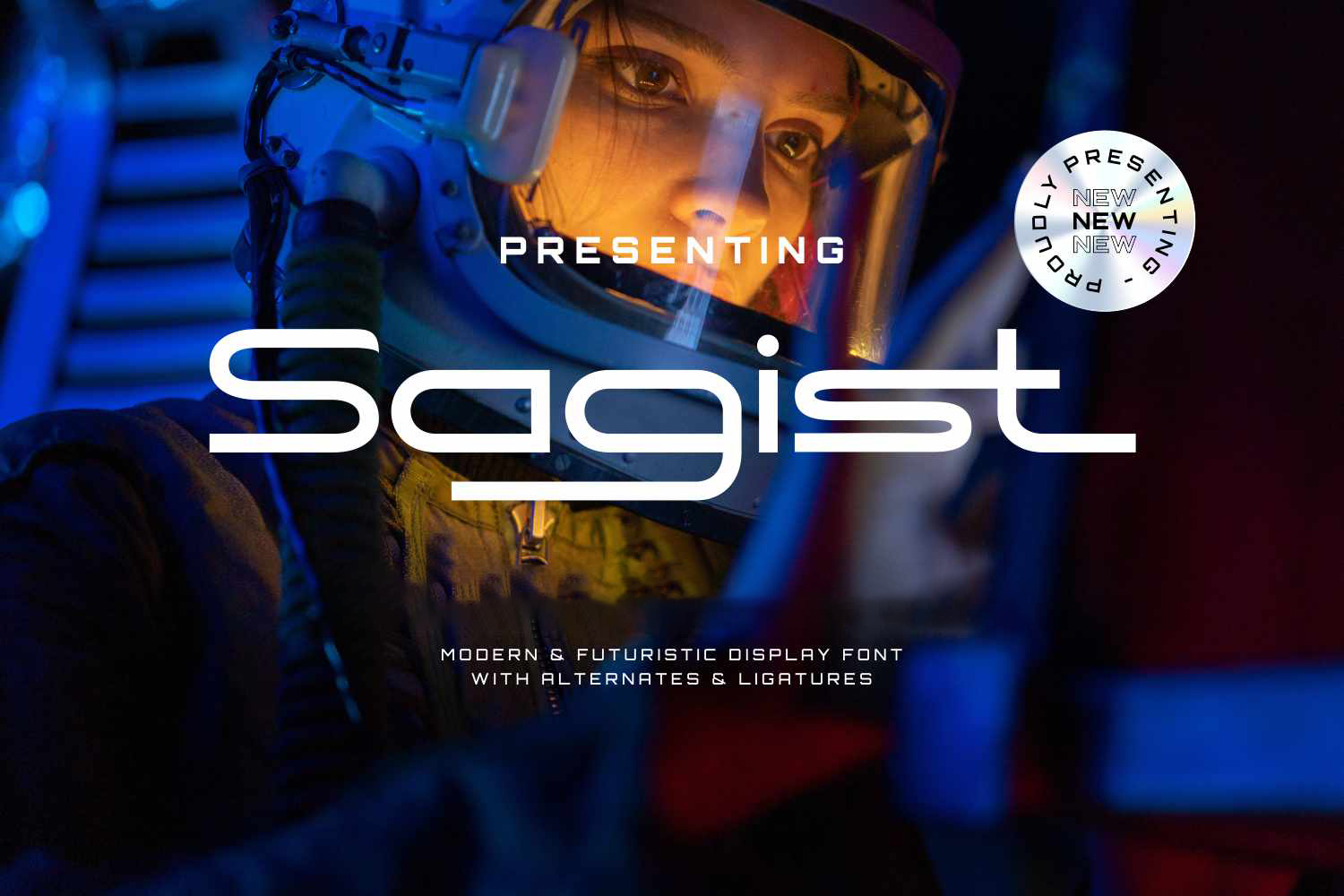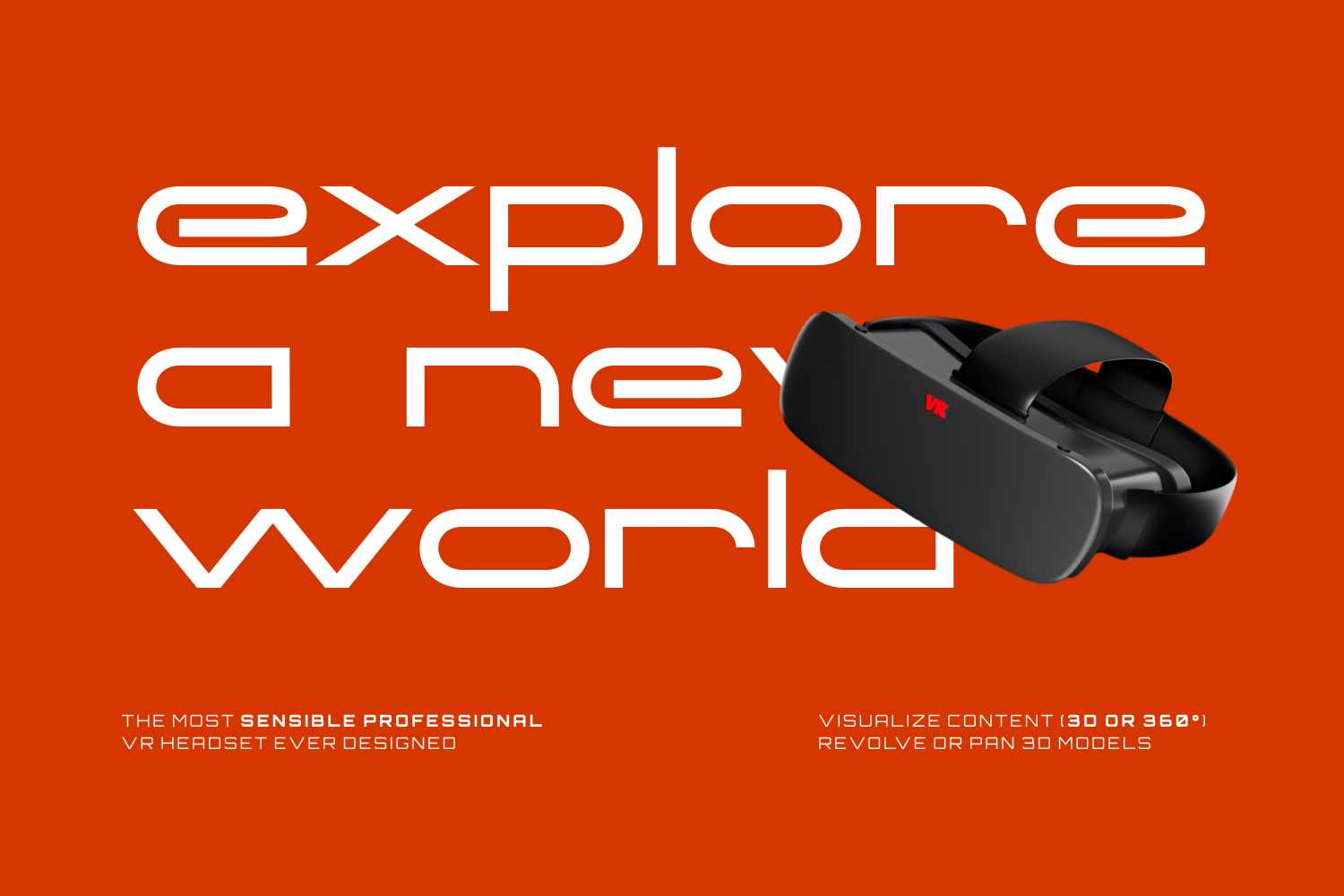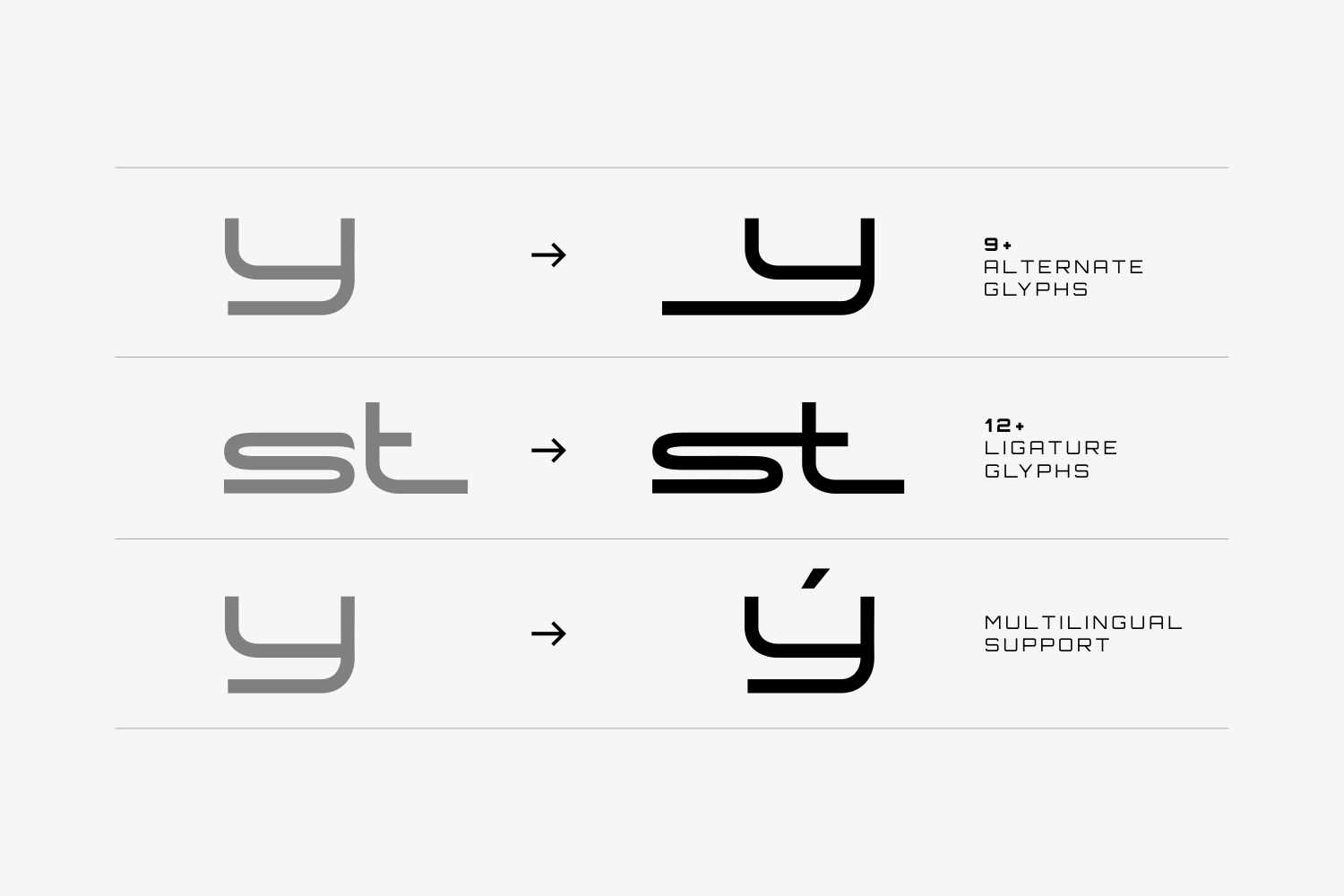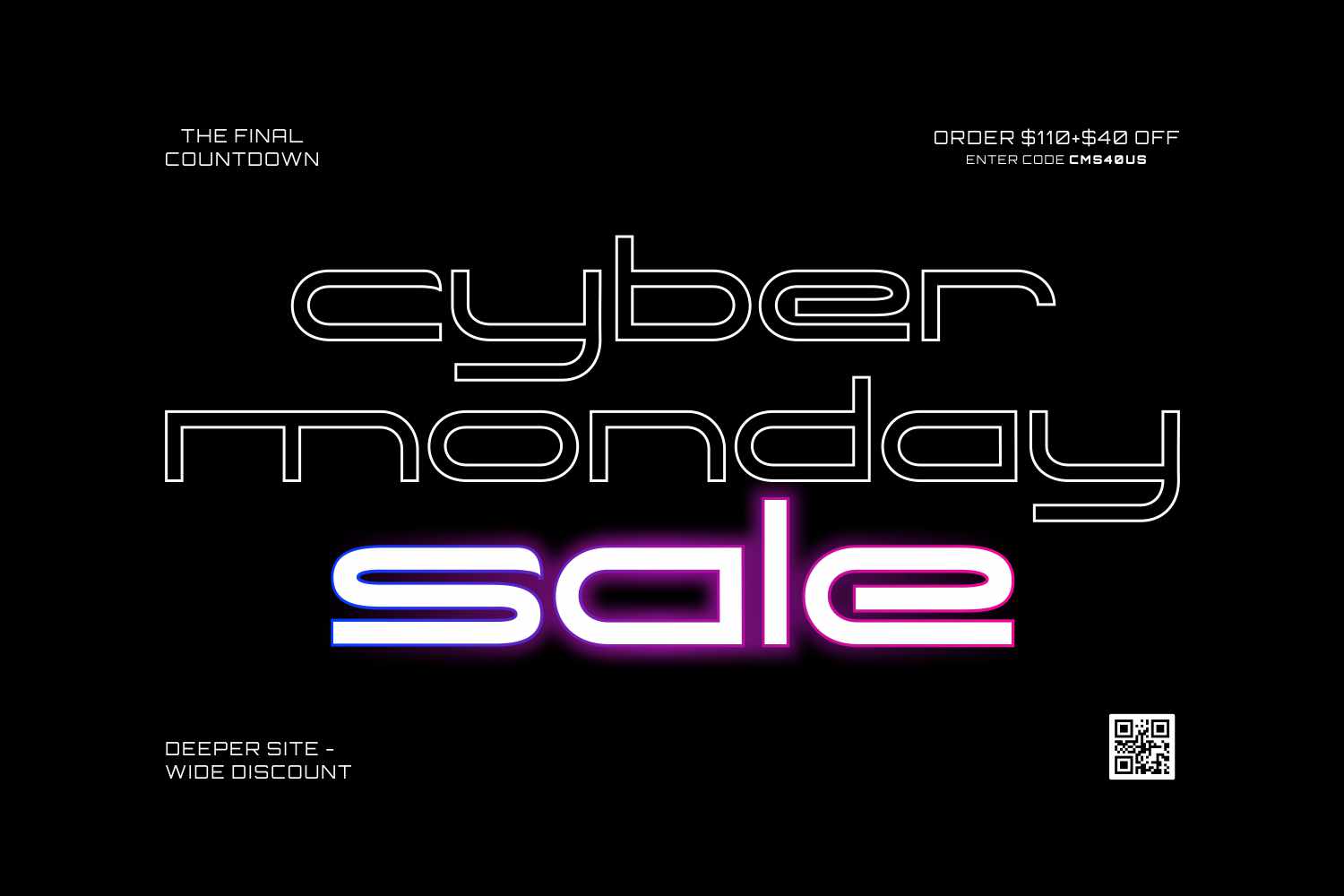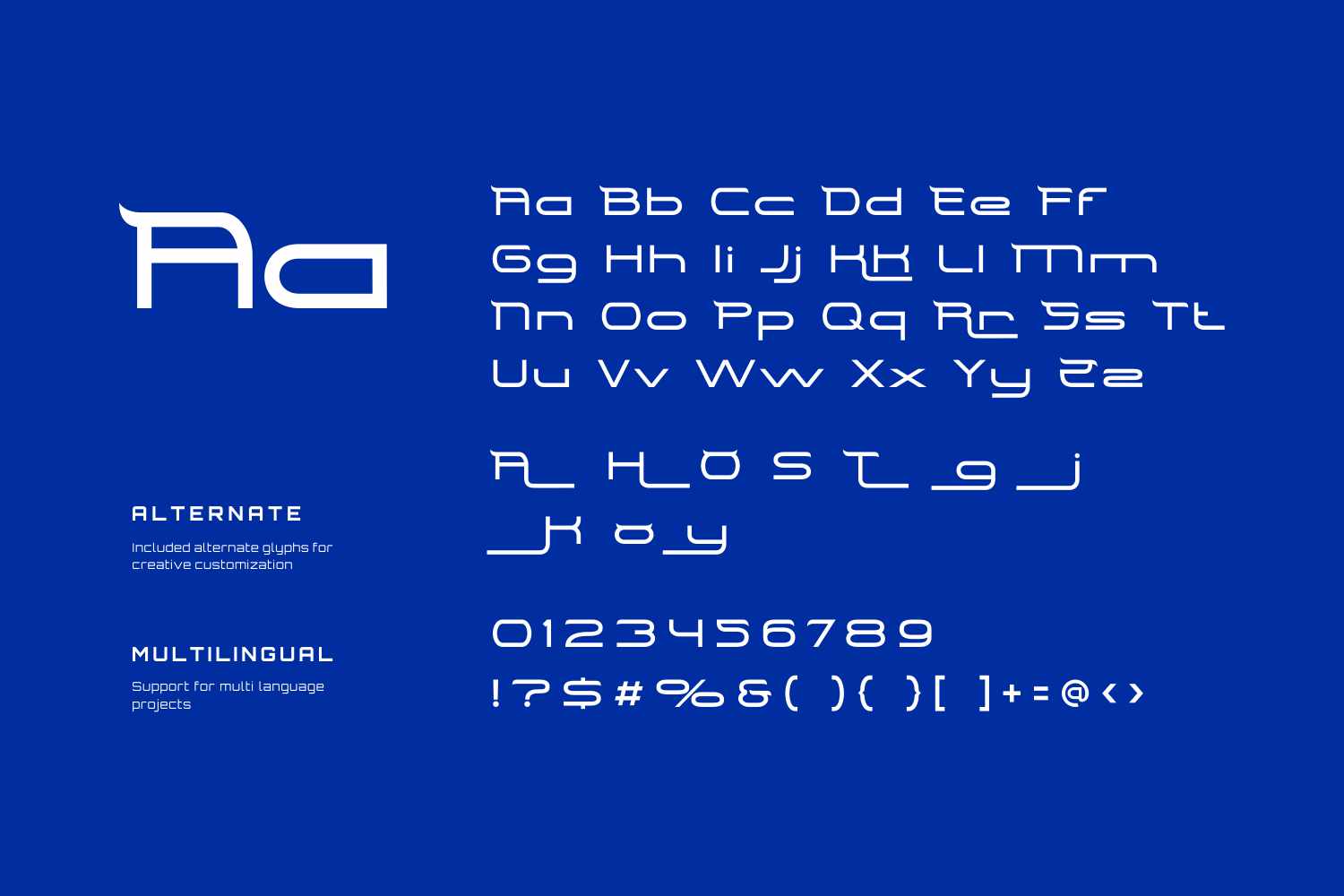
Sagist
Sagist is a Modern & Futuristic Display Font that blends sleek geometry with a high-tech aesthetic. Its unique shapes, extended lines, and bold presence make it perfect for projects that demand a forward-looking and innovative feel. Whether for sci-fi posters, tech branding, esports visuals, or digital interfaces, Sagist delivers a strong and futuristic identity.
Equipped with alternates, ligatures, and multilingual support, Sagist gives designers the flexibility to customize and elevate their typography. From logos and advertisements to motion graphics and cyberpunk-inspired visuals, this font ensures every design stands out with a cutting-edge and visionary style.